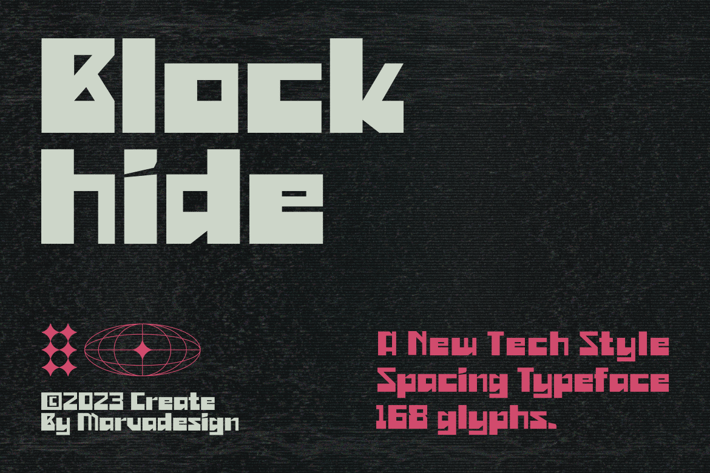
Blockhide - A Modern Techno Font
Introducing our new product Blockhide Font - A Modern Sans Serif Font
Blockhide Font - A Modern Sans Serif Font is a bold and authentic display font. The font is suitable for any branding project like logo, Template Design, Product and many more. outstanding in a wide range of contexts.